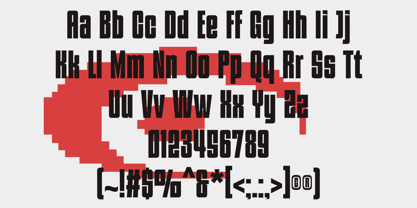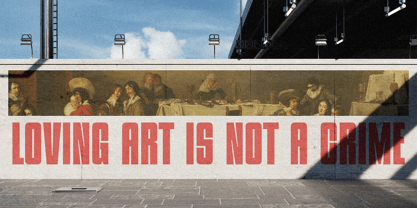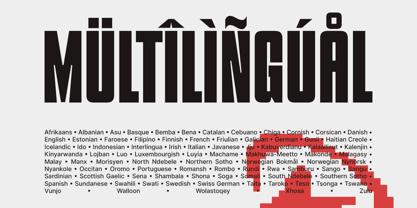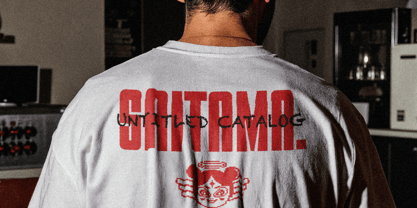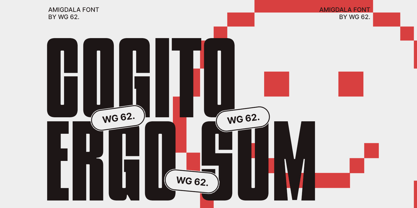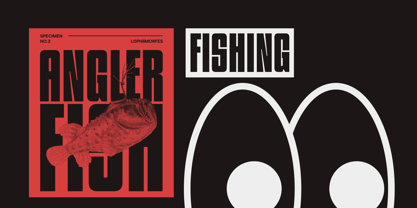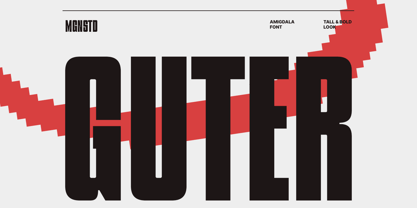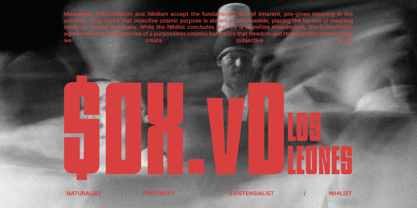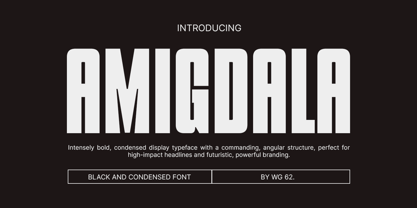
Amigdala
by Warung Grafis 62
The Amigdala Font Family was designed by Rijalul Kamal and published by Warung Grafis 62. Amigdala contains 1 styles. More about this family
AMIGDALA is an unmissable, ultra-condensed display font engineered for maximum visual urgency and power. Designed by Warung Grafis 62 to dominate headlines, AMIGDALA delivers a strong, monolithic aesthetic that captures the raw energy of industrial design and the sharp precision of futuristic technology. Why AMIGDALA is Unique Unlike typical block fonts, AMIGDALA’s power lies in its intensely condensed form combined with a nearly uniform stroke weight and minimal counter space. This unique structure allows for maximum word density, making it incredibly effective for high-impact communication where space is limited but presence is non-negotiable. Its robust, angular construction ensures superior legibility, even at large display sizes. AMIGDALA is the ideal choice for projects demanding an authoritative and modern edge. Its aggressive style is perfect for: eSports and Gaming: Logos, streaming overlays, and tournament branding. High-Energy Advertising: Movie posters, album art, and event promotions. Apparel and Branding: Streetwear, gym wear, and technology company identities. Packaging: High-impact product labeling and beverage designs. Digital: Powerful website headers and social media campaign titles. Functional Aspects and Features AMIGDALA is built as a highly functional display font. It features: Full Latin Character Set: Extensive coverage for multiple European languages. All Caps Design: Optimized purely for headline and title use. Punctuation and Numerals: Includes all essential glyphs for functional text. Product Pairing To balance AMIGDALA's aggressive impact, we recommend pairing it with clean, highly readable, neutral typefaces for body copy. Ideal pairings include humanist or geometric sans-serifs like Montserrat, Open Sans, or a simple Monospace font to complete a high-tech, industrial aesthetic. Display, Condensed, Bold, Futuristic, Industrial, Angular, E-sports, Headline, Gaming, Block, Powerful, Monolithic, Tech.